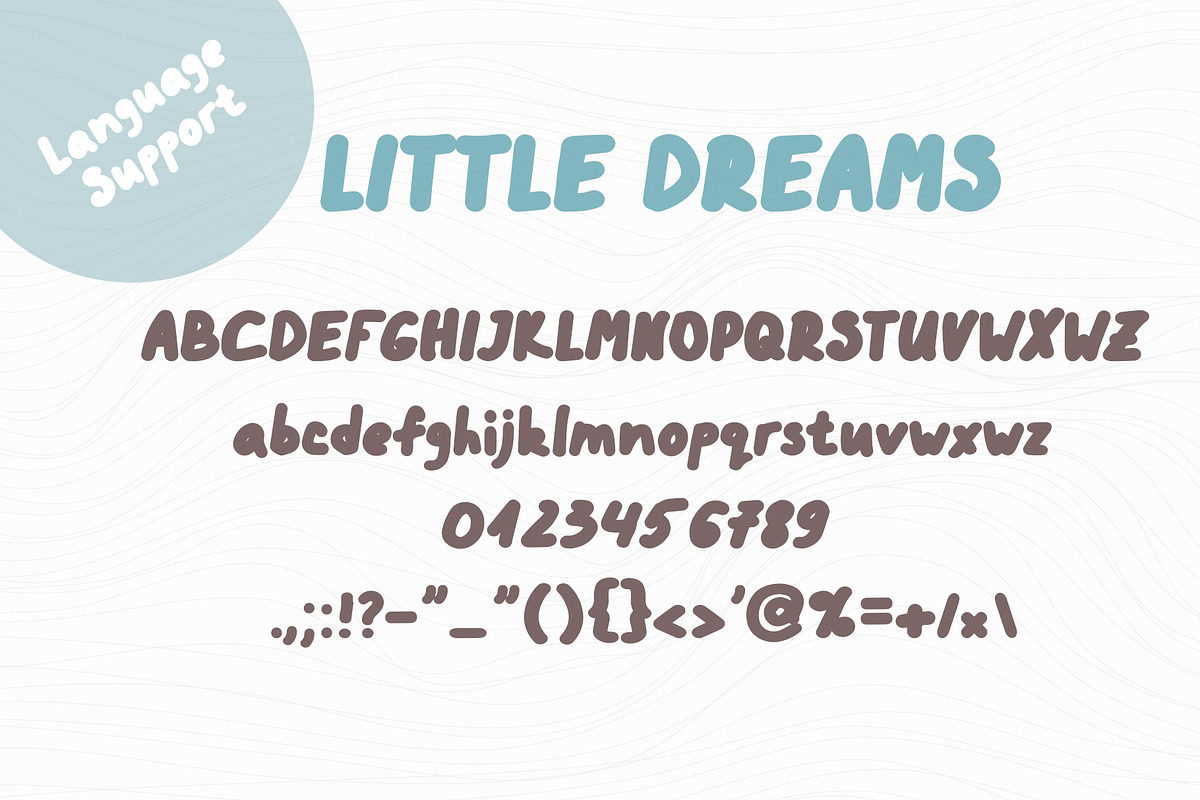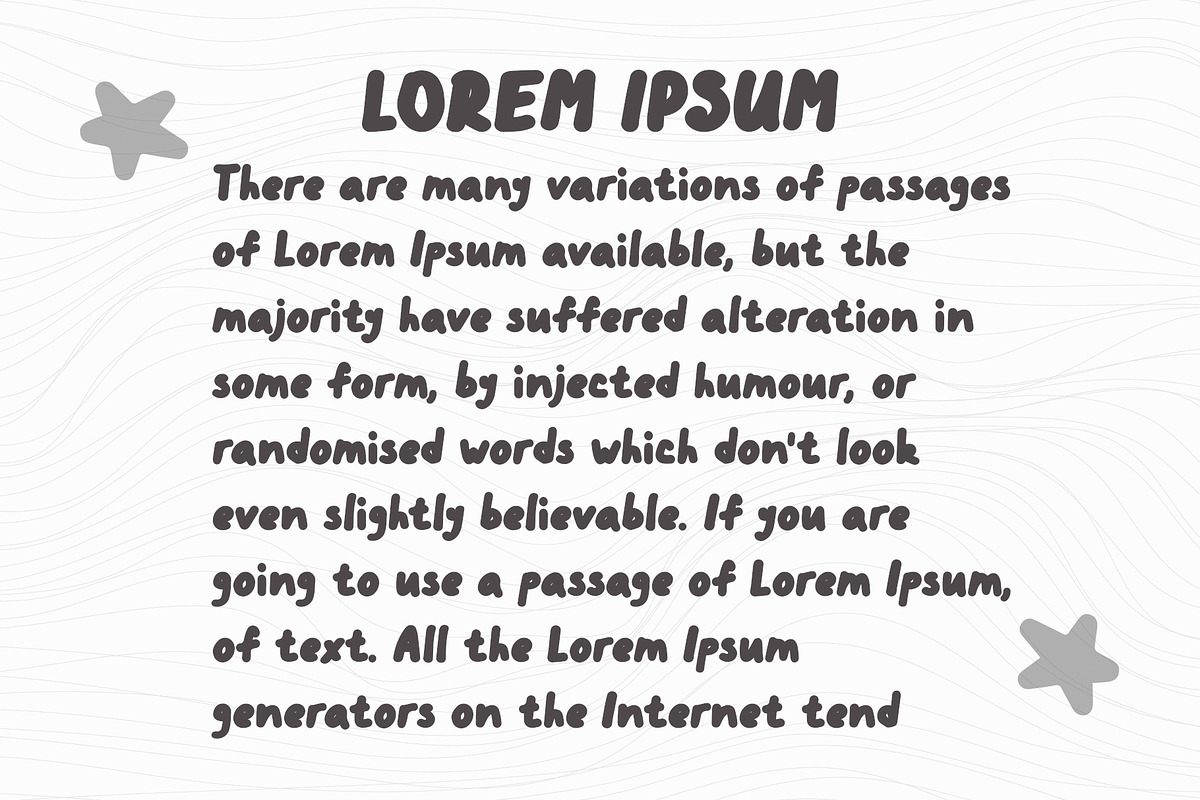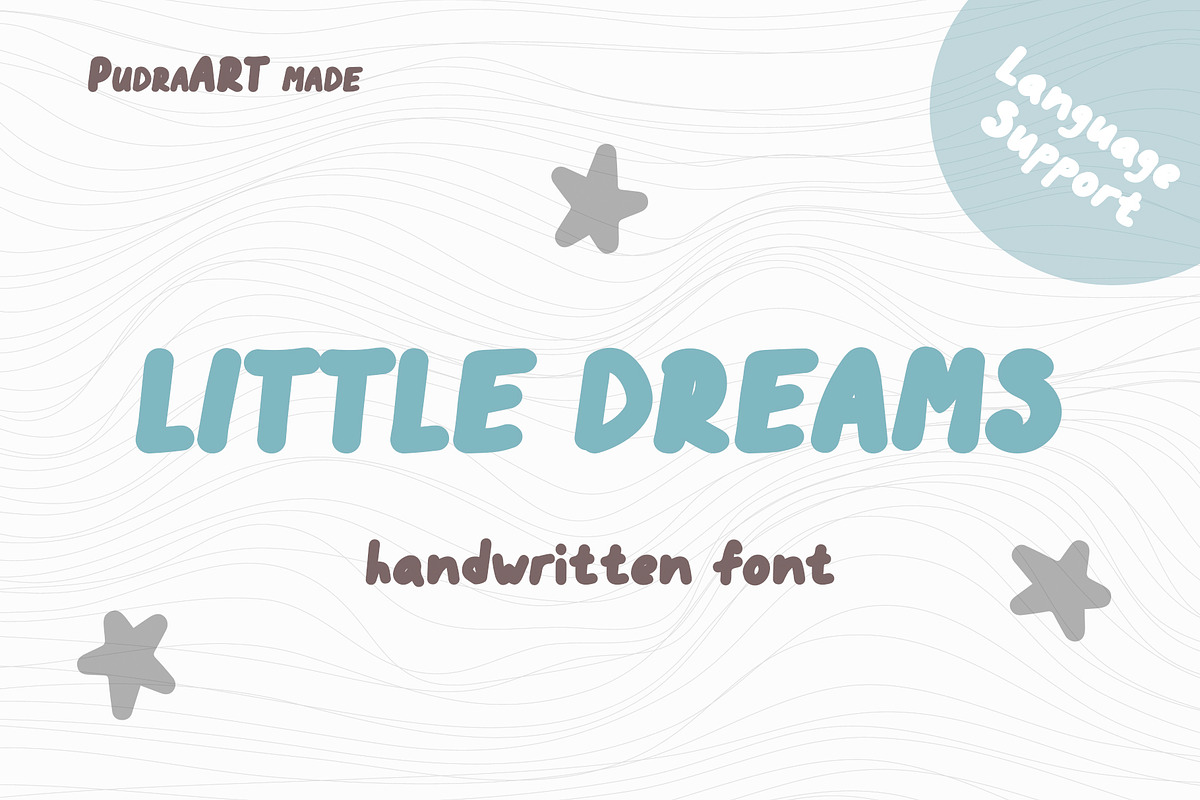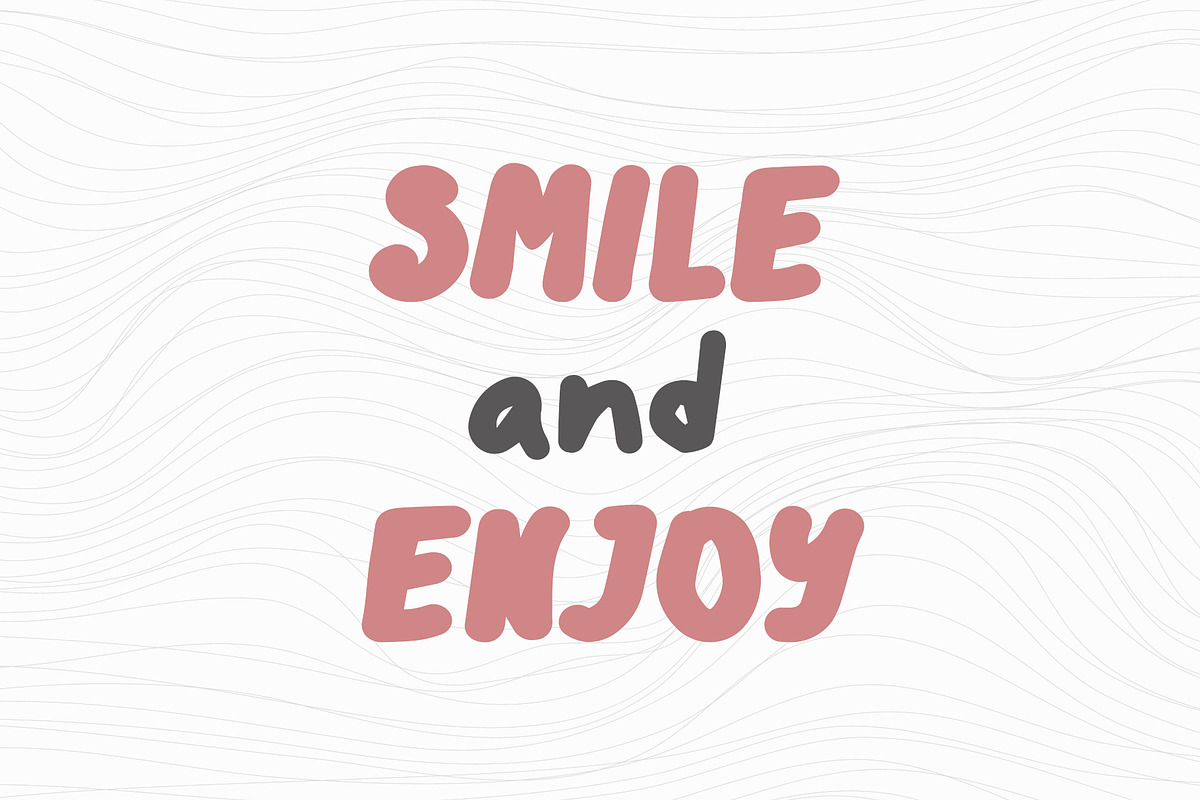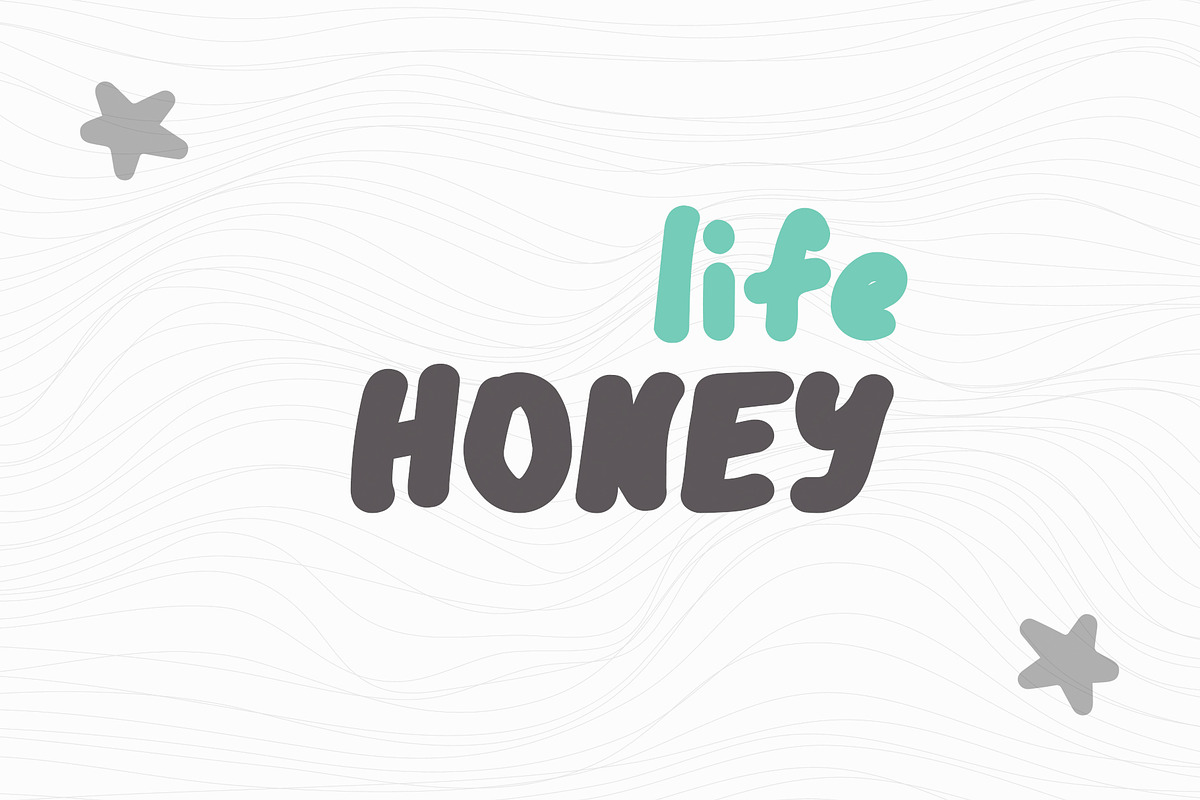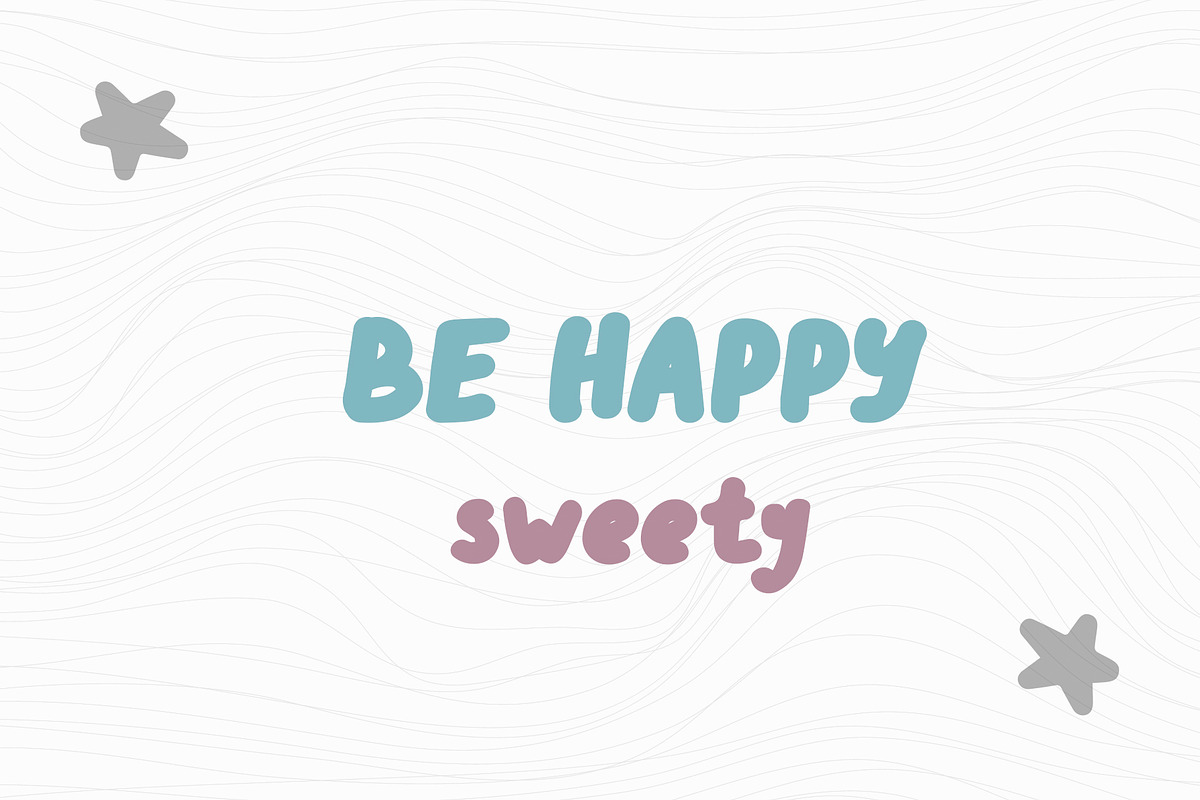
Little Dreams Kids font
LITTLE DREAMS Font
Little dreams Font a super universal and useful hand-lettered font.
It is perfect for:
- flyer
- greeting cards
- packaging
- children cover book
- quotes
- logo
- cloth etc.